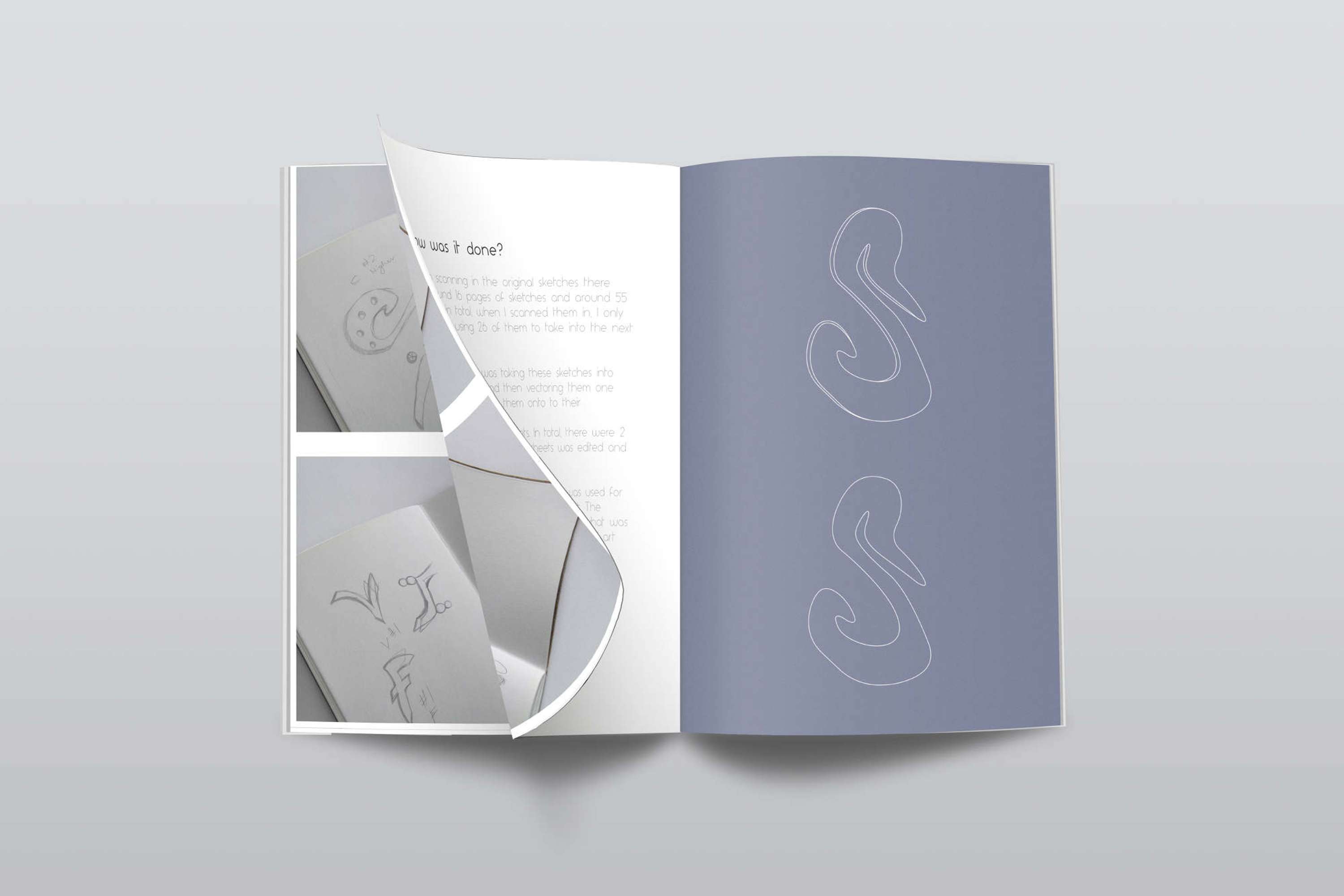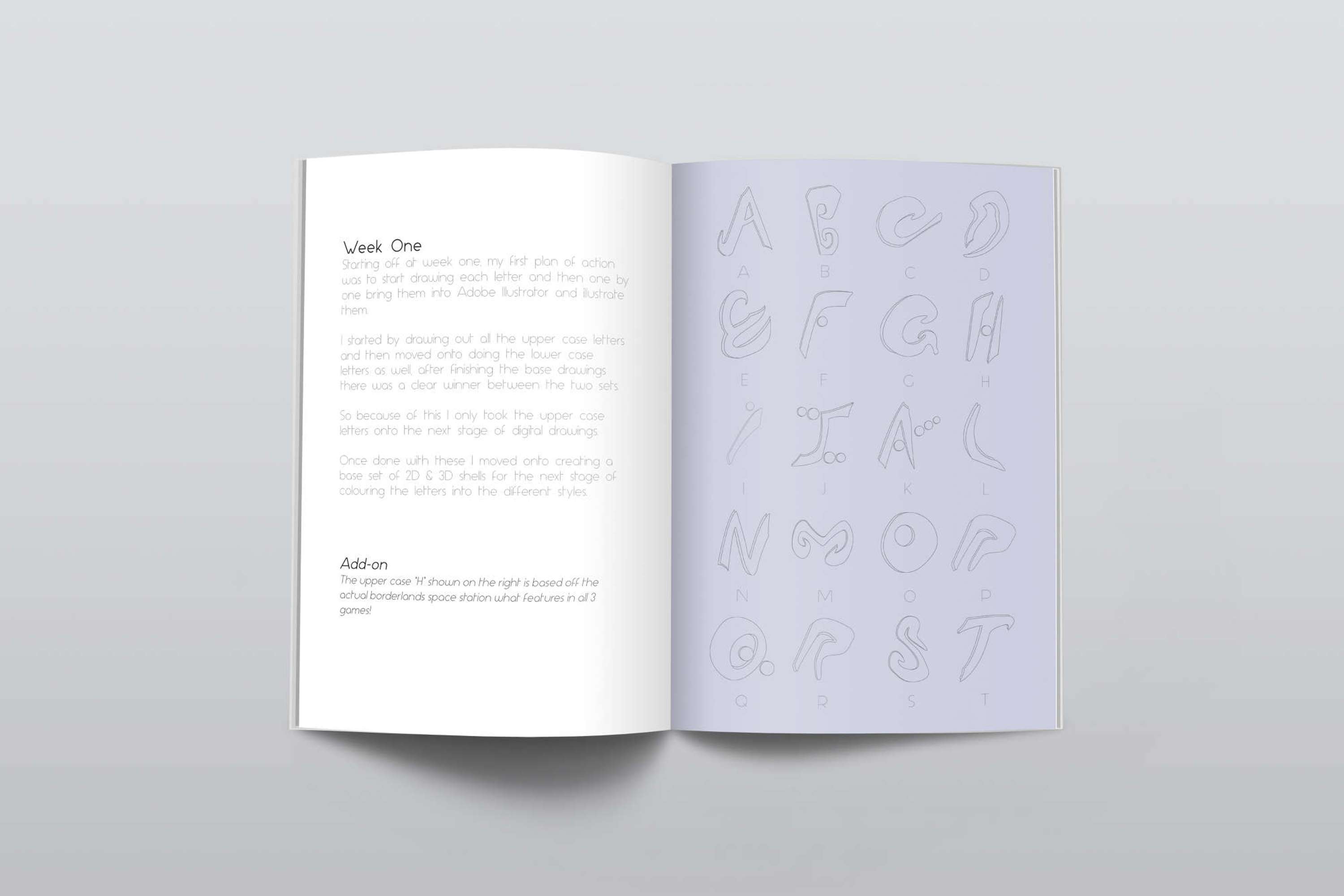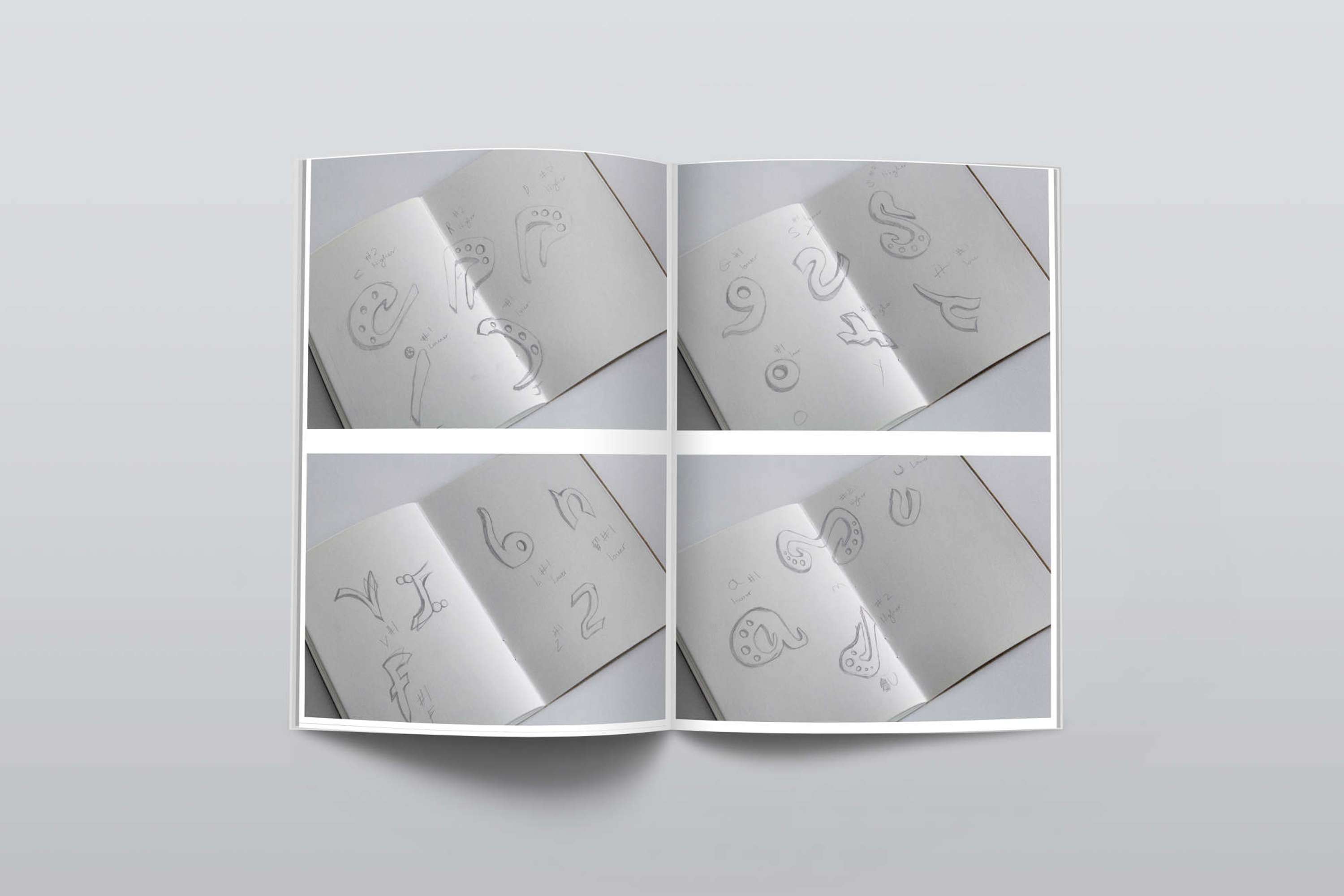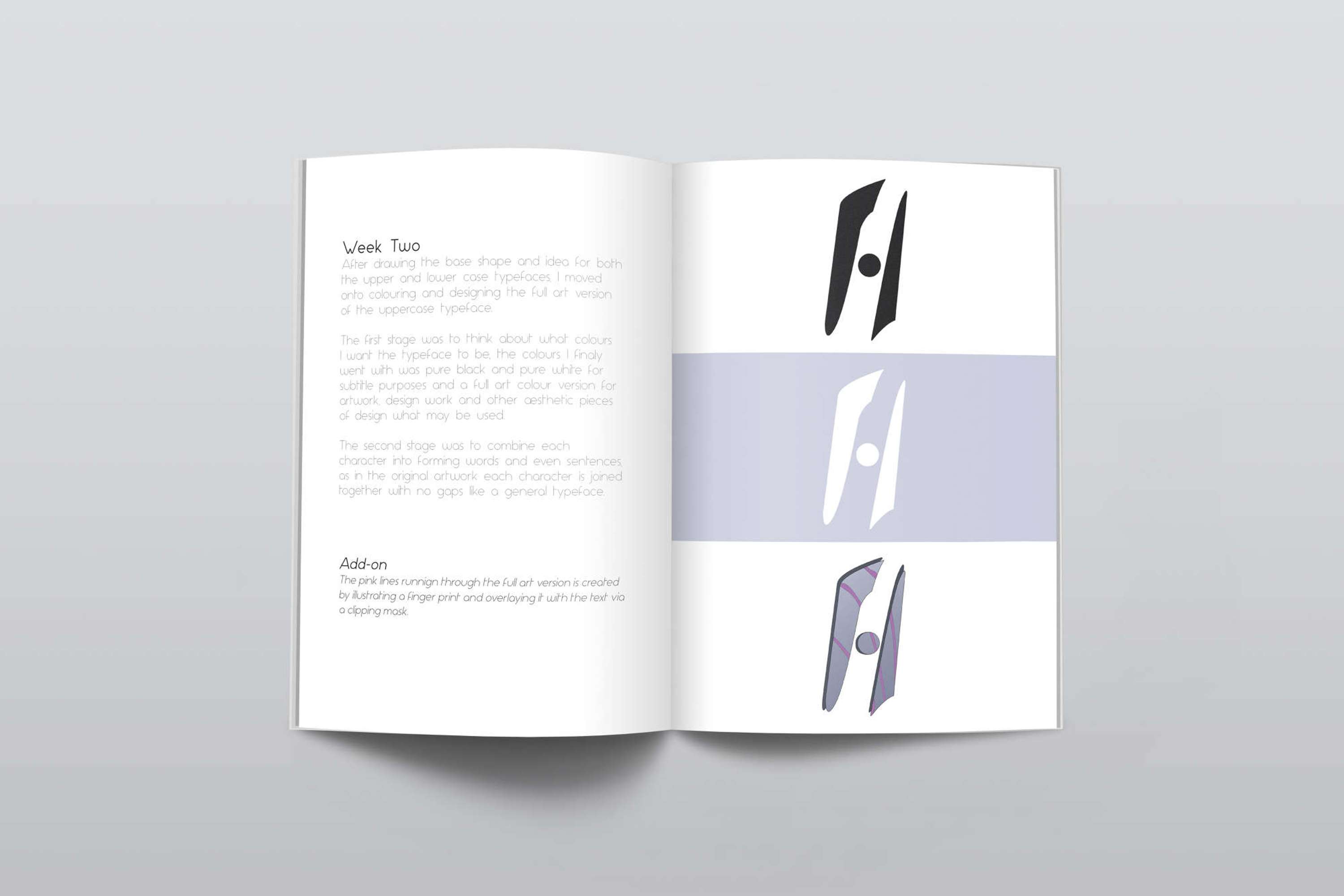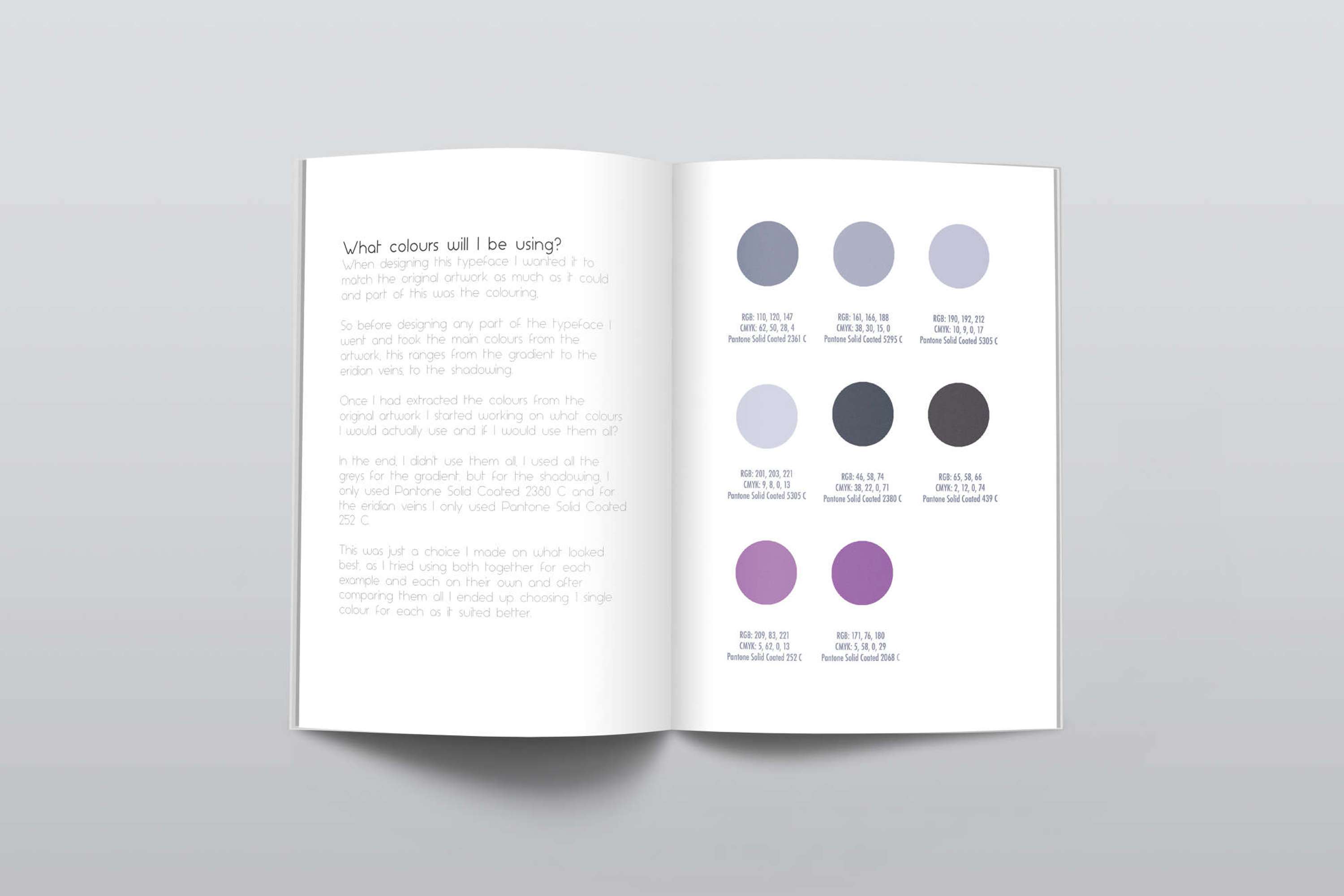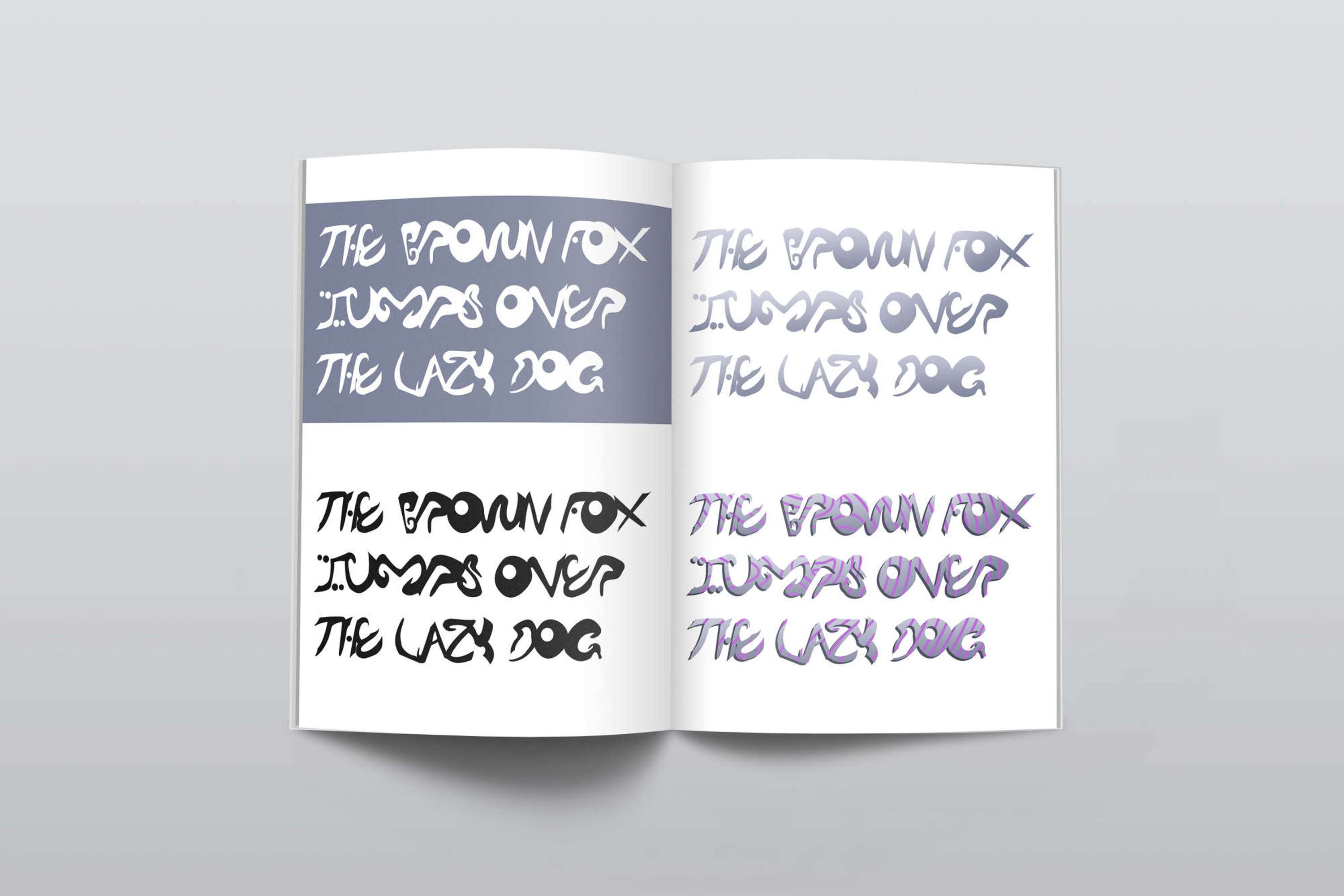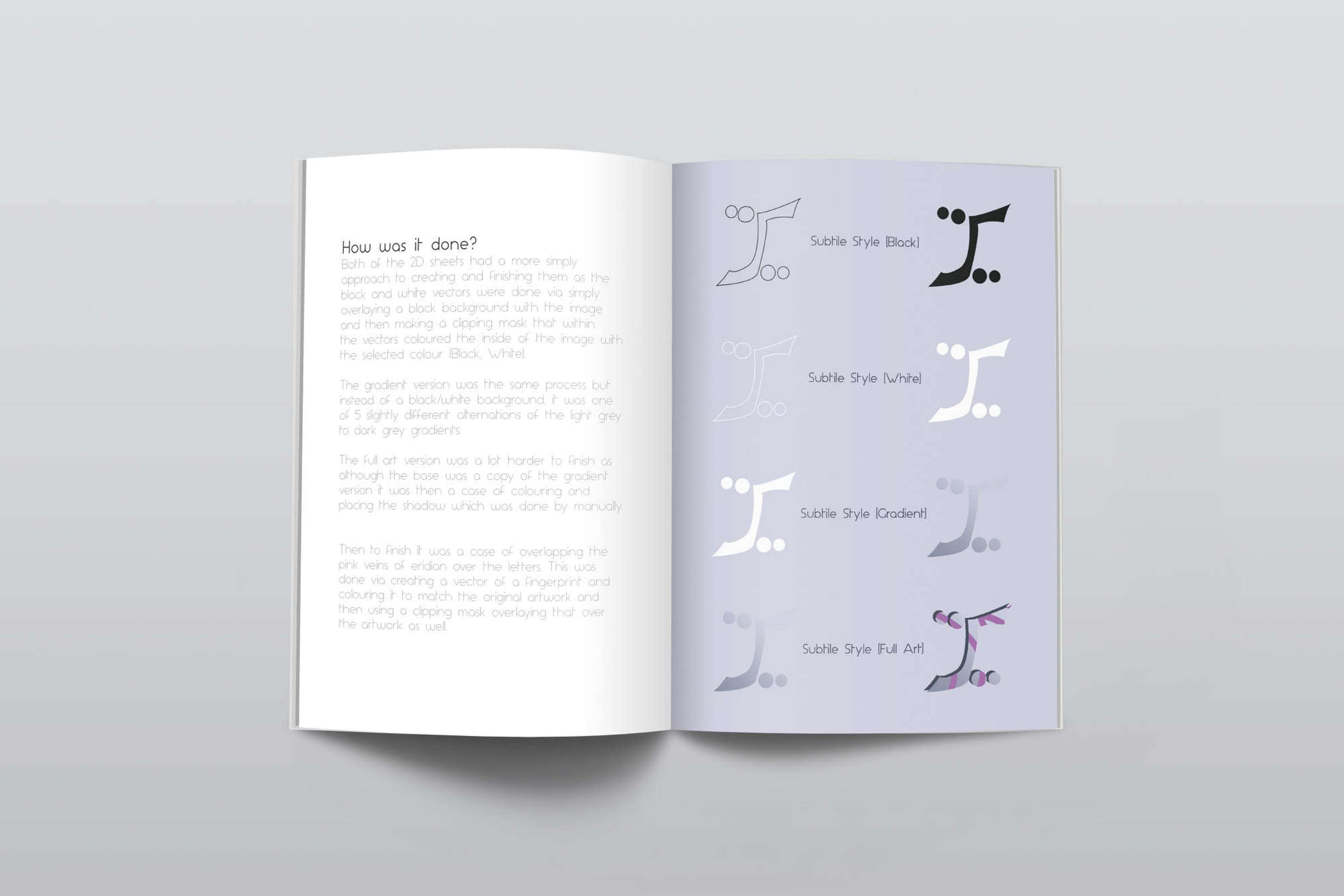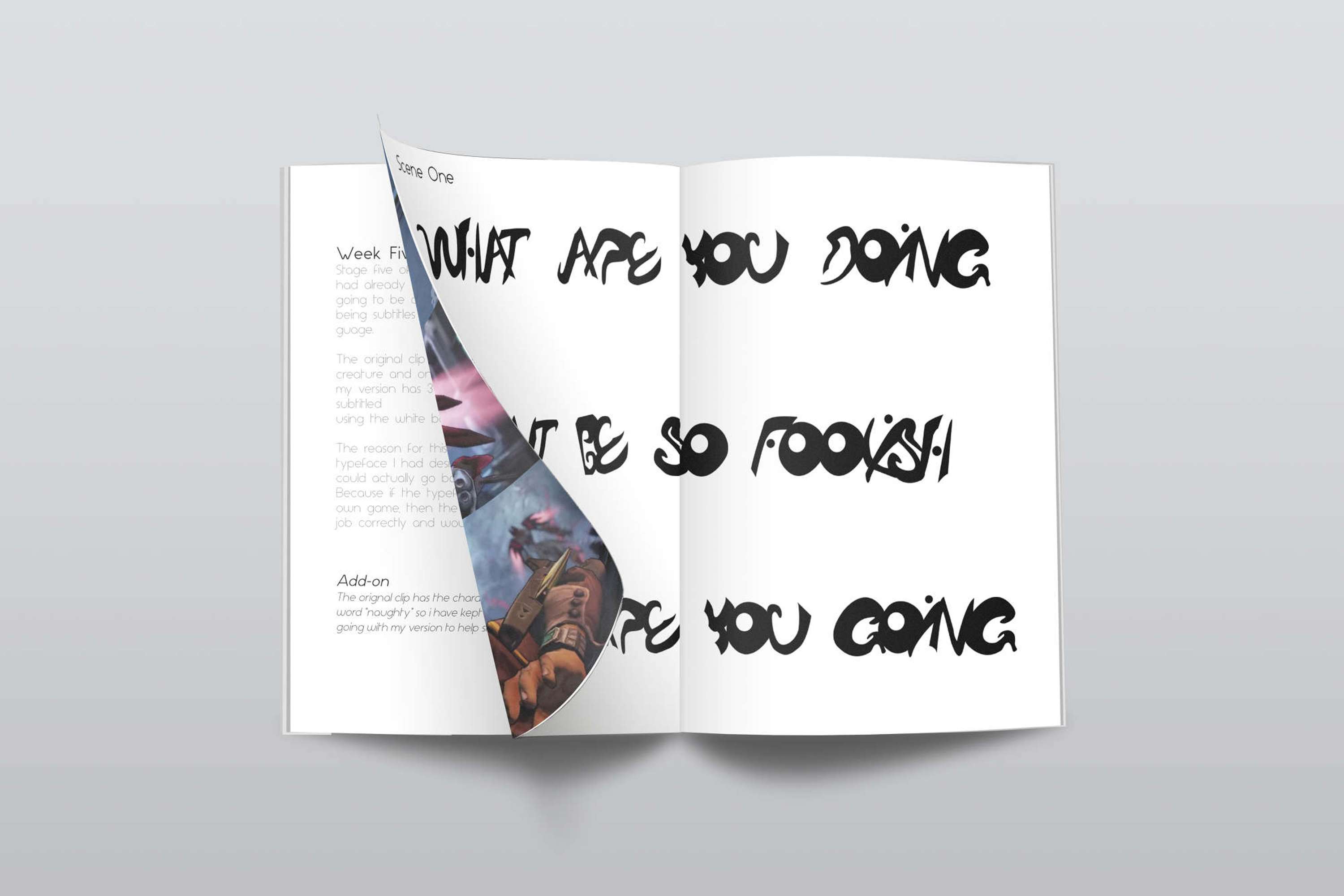
Experimental Typeface
Experimental Typeface During my last year at university, we were given a wide project brief of running a 6-week experimental project. In short, we had 6 weeks to dive into any area we with a do an experimental piece of work and a journal. For my project, I choose to look into game design, the menus, typefaces, and other surrounding bits of artwork. I started by making some base typefaces and then slowly started adding them back into the game via subtitles in cut-scenes and by recreating game menus.
Experimental Typeface by Robert Evans